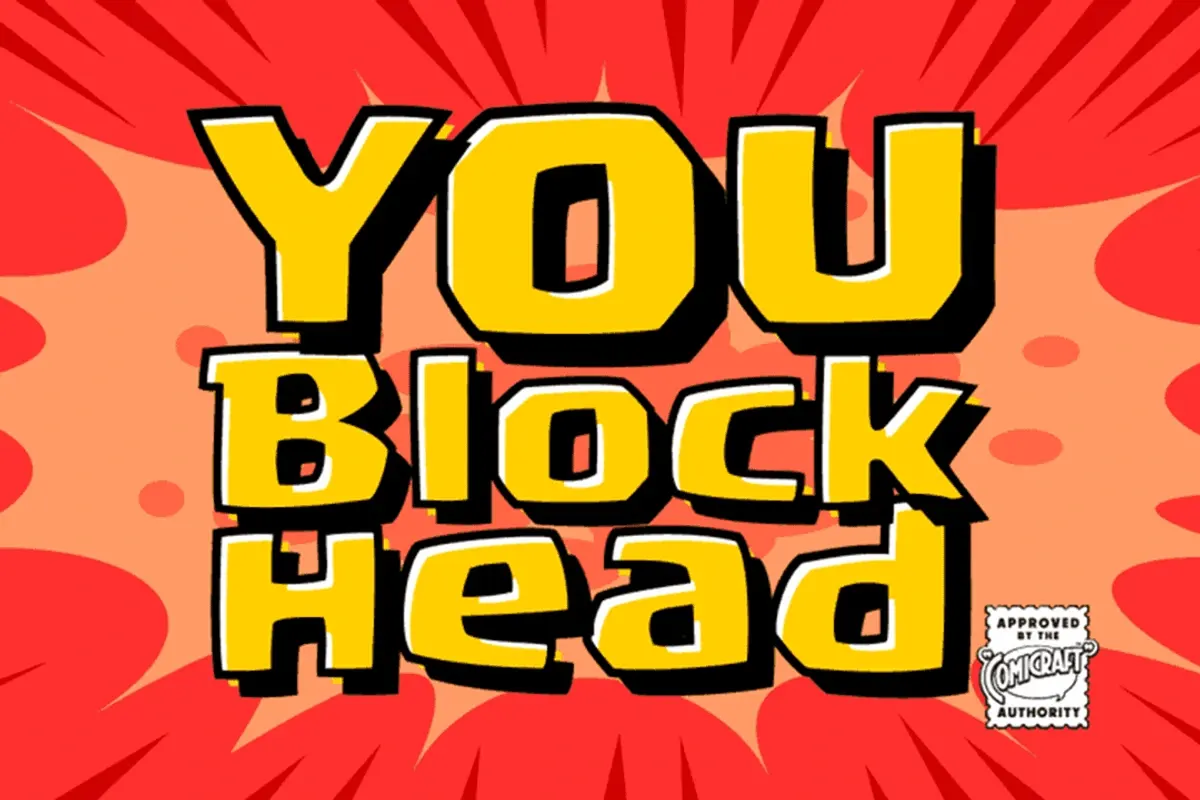
You Blockhead Font Free Download is a bold, fun, and quirky display typeface designed to stand out. With its blocky letterforms, playful shapes, and unique personality, You Blockhead is perfect for attention-grabbing headlines, posters, logos, product packaging, and any design that needs a strong, creative touch.
Inspired by cartoonish design and retro aesthetics, this font brings a sense of humor and boldness to your typography. Whether you're creating graphics for a children's brand, an edgy social media campaign, or a fun event poster, You Blockhead adds character and charm to your projects.